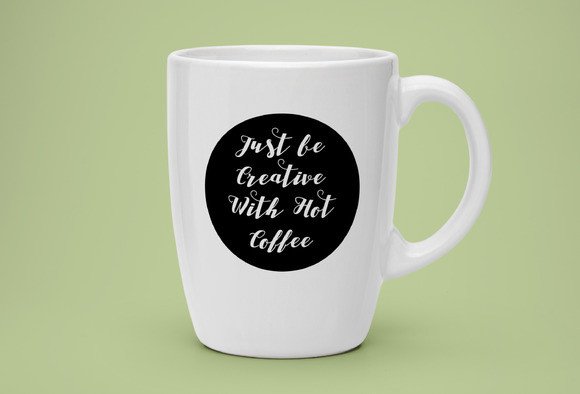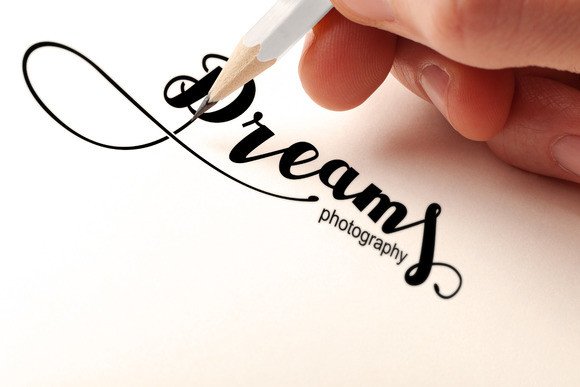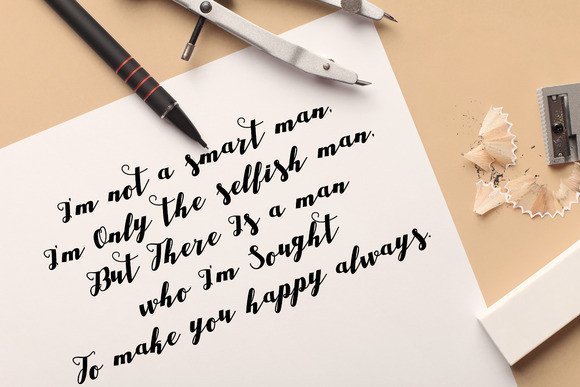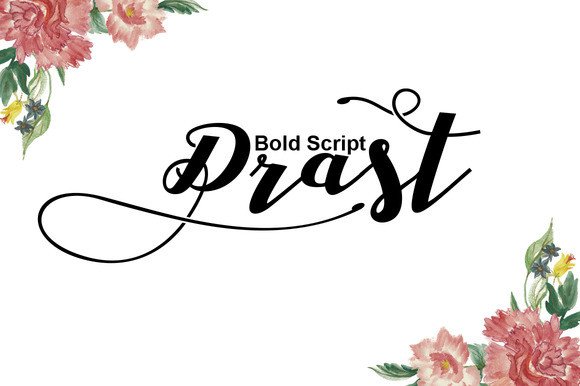
Introducing Drast Script Font: Elevate Your Designs with Elegance and Sophistication
In the world of typography, script fonts hold a special place for their elegance, sophistication, and ability to add a touch of personality to any design. Among the myriad of script fonts available, Drast Script Font stands out for its unique blend of beauty and functionality. Specifically, Drast Bold is a jaw-droppingly gorgeous script font with a high impact contrast, making it an ideal choice for romantic invitations or headlines that demand attention.
What Makes Drast Script Font Special?
Drast Script Font, particularly in its bold version, boasts a distinctive characteristic – a high impact contrast. This feature allows for a dynamic visual appeal that can elevate any design project. The contrast in Drast Bold is not just about aesthetics; it’s also about functionality. It provides excellent readability, even at smaller sizes, making it versatile for various applications, from elegant wedding invitations to compelling headlines in magazines or digital media.
Ideal for Romantic Invitations and Headlines
When it comes to creating romantic invitations, such as wedding invites or Valentine’s Day cards, the font used can significantly influence the overall feel and tone of the message. Drast Bold’s elegant strokes and sophisticated look make it perfect for conveying love and luxury. Its high contrast adds a touch of drama and elegance, ensuring your invitations or headlines stand out and leave a lasting impression.
Beyond romantic invitations, Drast Script Font, especially the bold version, finds its utility in a wide range of design applications. It’s excellent for:
- Headlines and Titles: The high contrast and elegant look make it perfect for grabbing attention in headlines, titles, and even posters.
- Branding and Logos: For businesses aiming to convey luxury, elegance, and sophistication, Drast Bold can be a valuable asset in their branding toolkit.
- Packaging: Product packaging, especially for high-end or luxury goods, can benefit from the distinctive look of Drast Script Font.
- Digital Media: In digital platforms, such as blogs, social media posts, or advertisements, Drast Bold can add a touch of class and professionalism.
Tips for Using Drast Script Font Effectively
To make the most out of Drast Script Font, consider the following tips:
- Pairing: Combine Drast Bold with simpler fonts for body text to create a balanced and harmonious design.
- Size Matters: Take advantage of the font’s high contrast by experimenting with different sizes to add depth and interest to your designs.
- Color Choices: While the font itself is elegant, the right color choice can enhance its beauty. Consider classic combinations like gold and black or more modern pairings.
Drast Script Font, with its bold and striking appearance, offers designers and crafters a tool to add elegance, sophistication, and a touch of romance to their projects. Its high impact contrast not only makes it visually appealing but also highly functional across various design applications. Whether you’re working on romantic invitations, headlines, or any project that demands a touch of luxury, Drast Bold is sure to make a statement.
Explore the possibilities with Drast Script Font and discover how it can elevate your designs to new heights of elegance and sophistication.